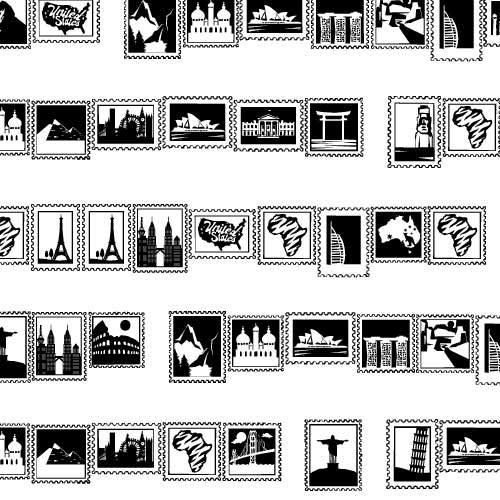
DB Go See Do - Stamps - DB
This doodlebat font features 26 different travel themed stamp destinations, perfect for documenting vacations, card making, scrap booking, planner stickers, parties, crafts and more!